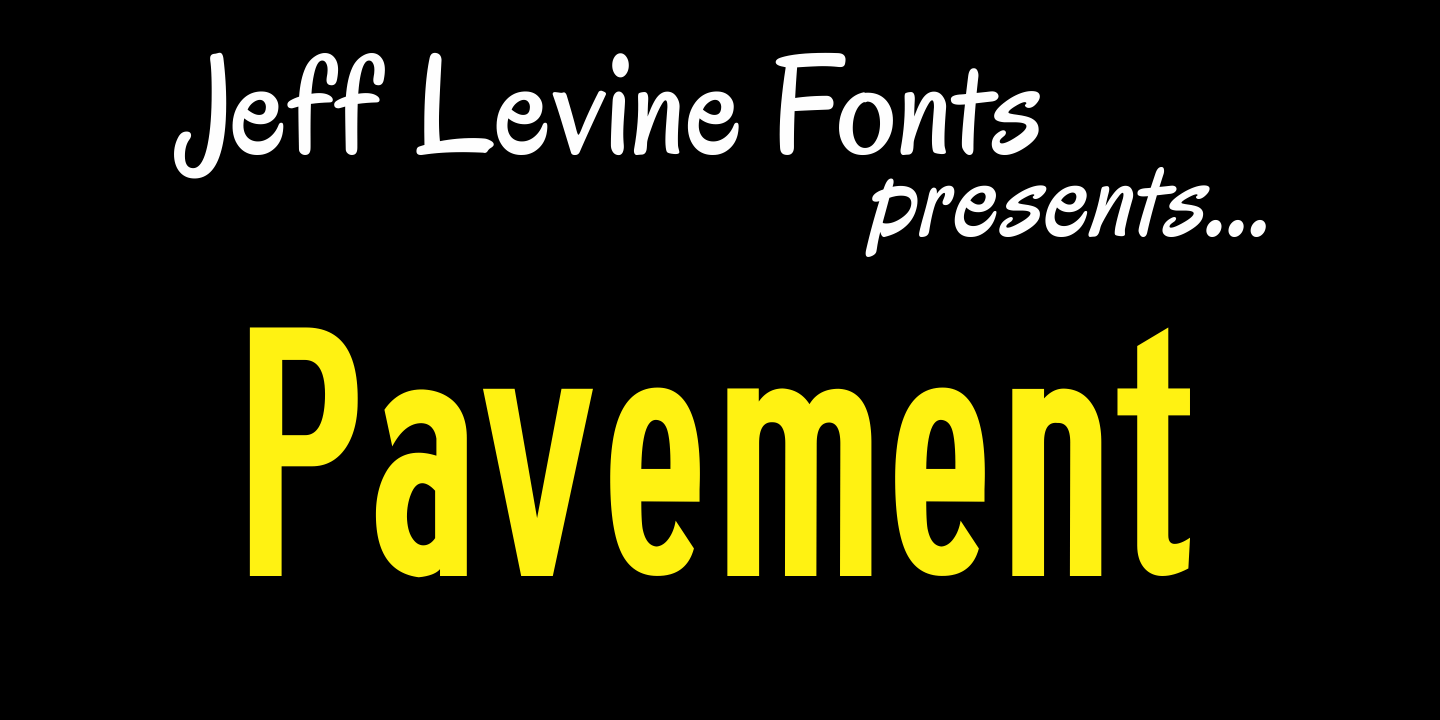
Pavement
Pavement JNL is Jeff Levine's version of the extra-condensed lettering used on roadway information signs as revised by the U.S. Government in 2000.
A companion font to this style is Endless Journey JNL.